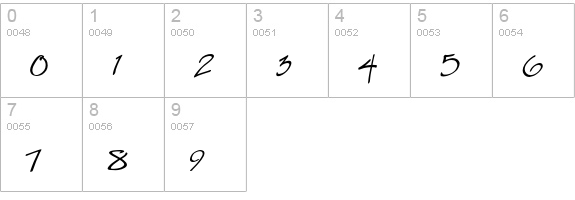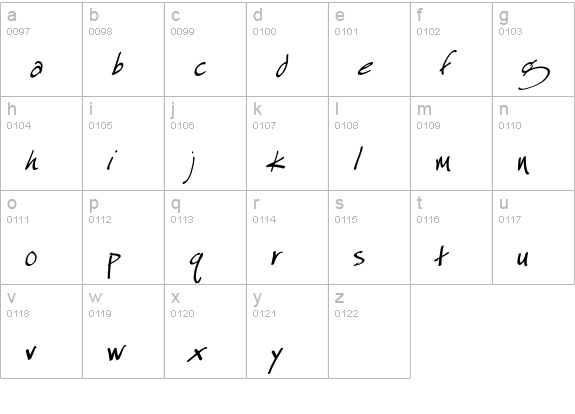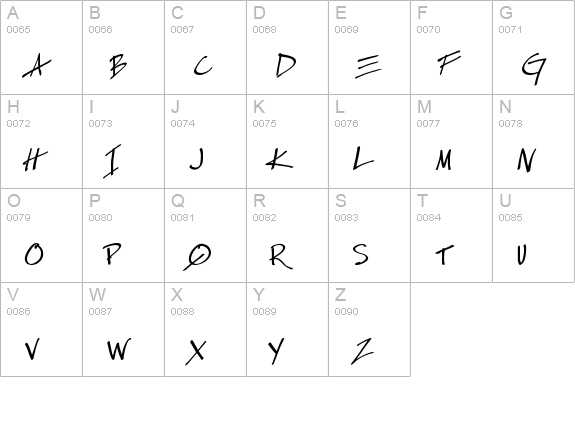
EspecialKayDemo Font Details
EspecialKayDemo font is a stylish and modern typeface that exudes sophistication and elegance. This versatile font is perfect for a wide range of design projects, from branding to editorial design. With its unique and eye-catching design, EspecialKayDemo font will make your projects stand out and leave a lasting impression on your audience. The best part? EspecialKayDemo font is completely free to use and is available for download at FontsMarket.com. This means you can add this stunning font to your collection without having to spend a dime. Don't miss out on the opportunity to enhance your designs with this beautiful and free font. Download EspecialKayDemo font today and take your projects to the next level!